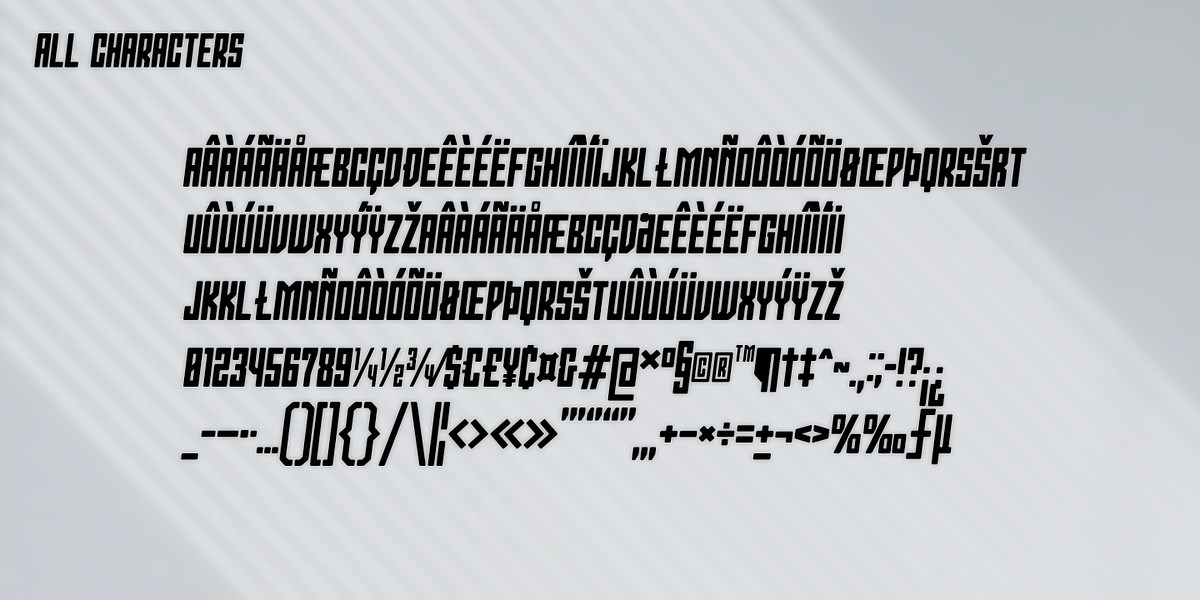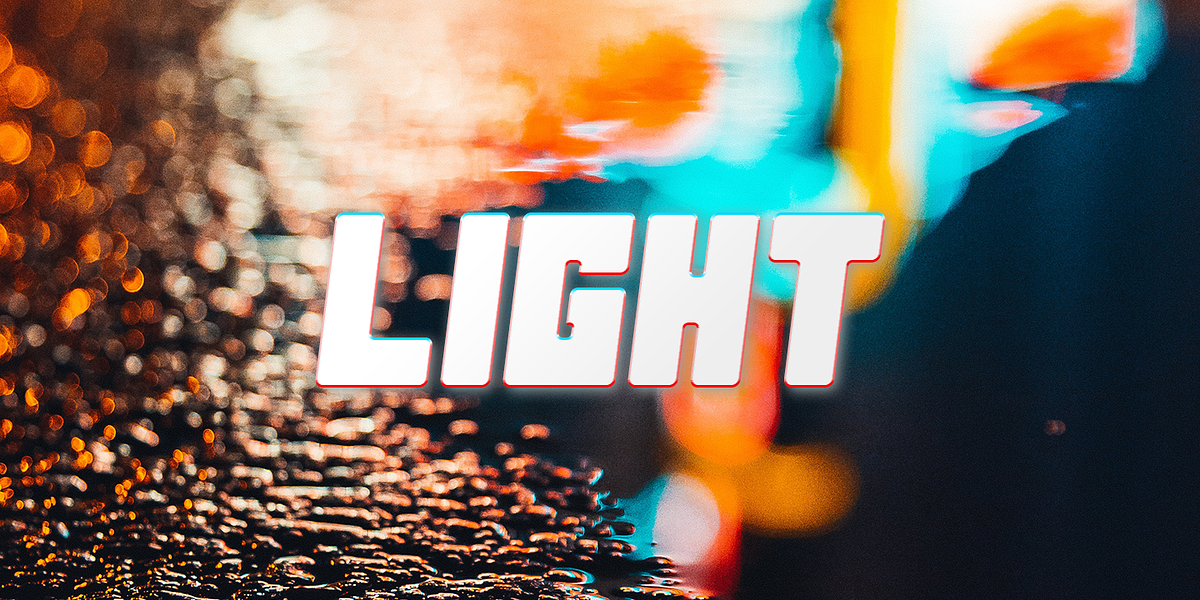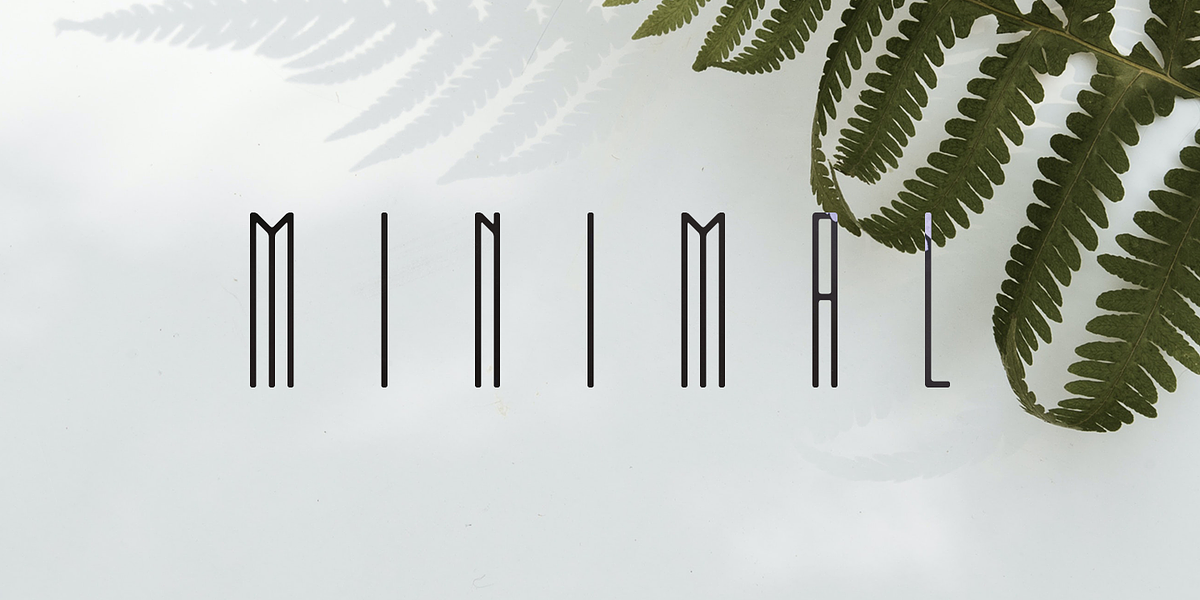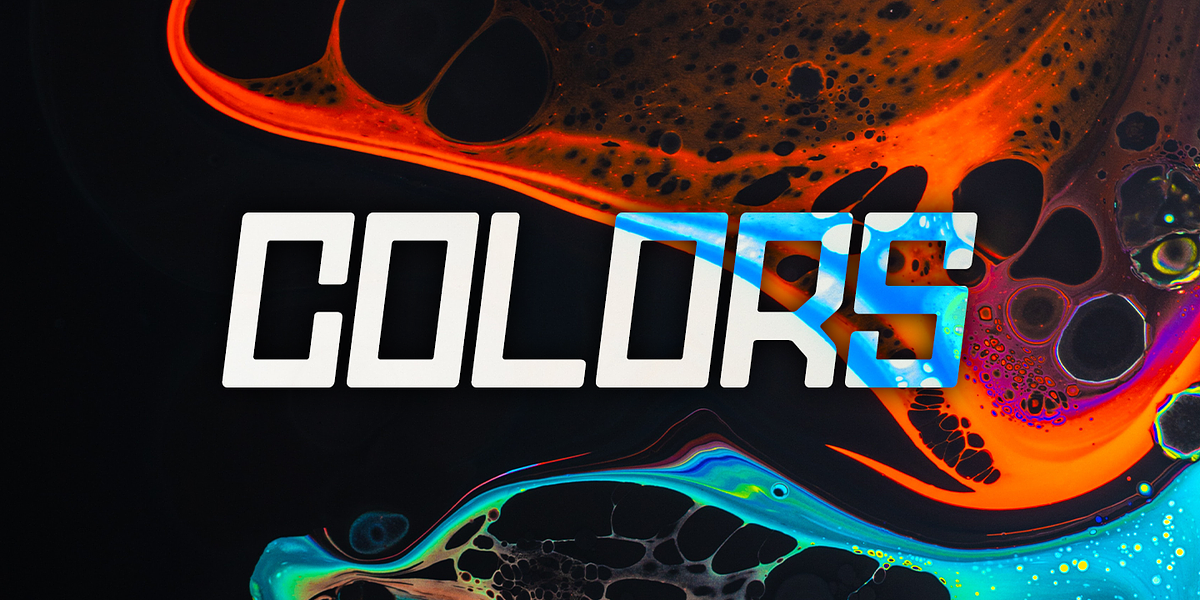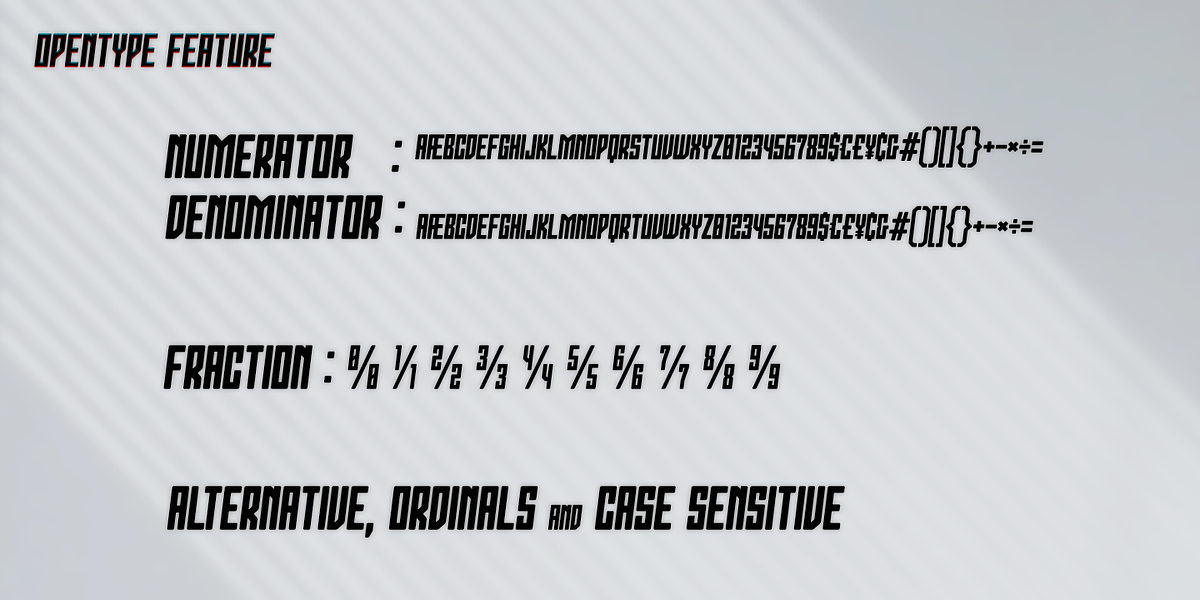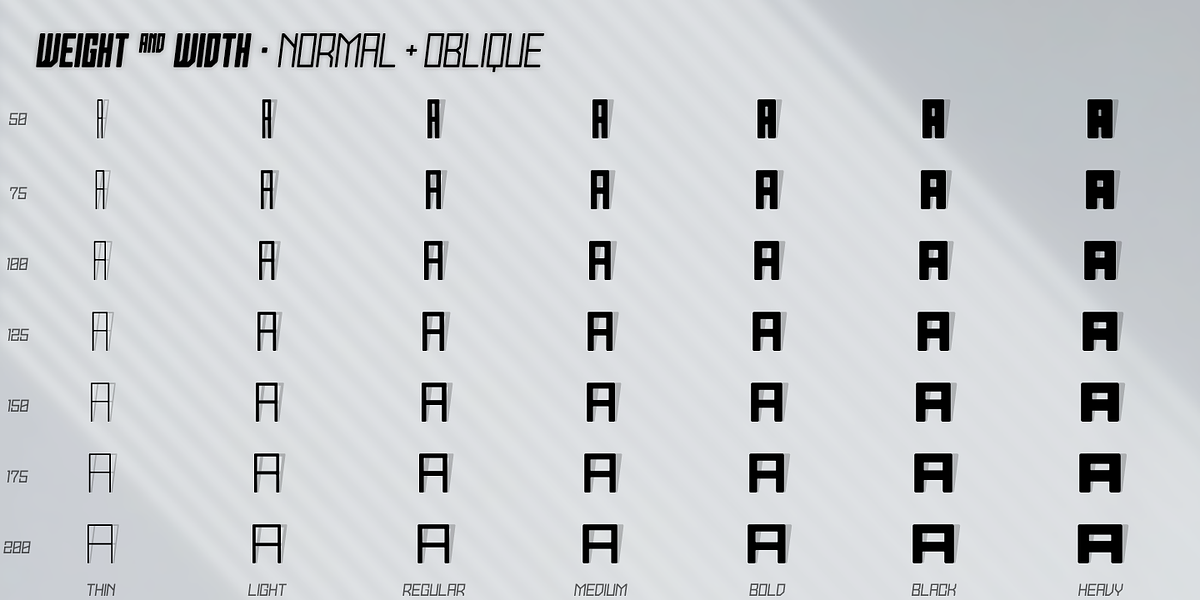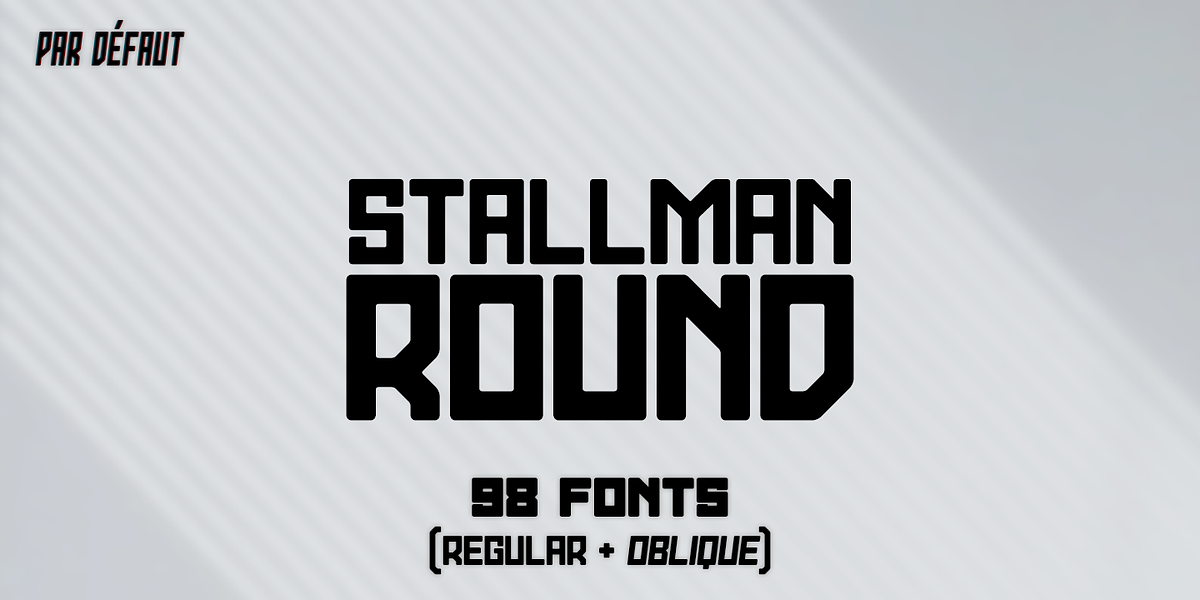
Stallman Round
Stallman Round is a versatile decorative display font family designed for impact. Its minimalist aesthetic blends retro influences with modern sensibilities. Available in a range of widths from ultra condensed to extra extended, Stallman Round also boasts regular and italic weights. The inclusion of six OpenType features, including alternates, fractions, and case sensitivity, allows for advanced typographic customization.